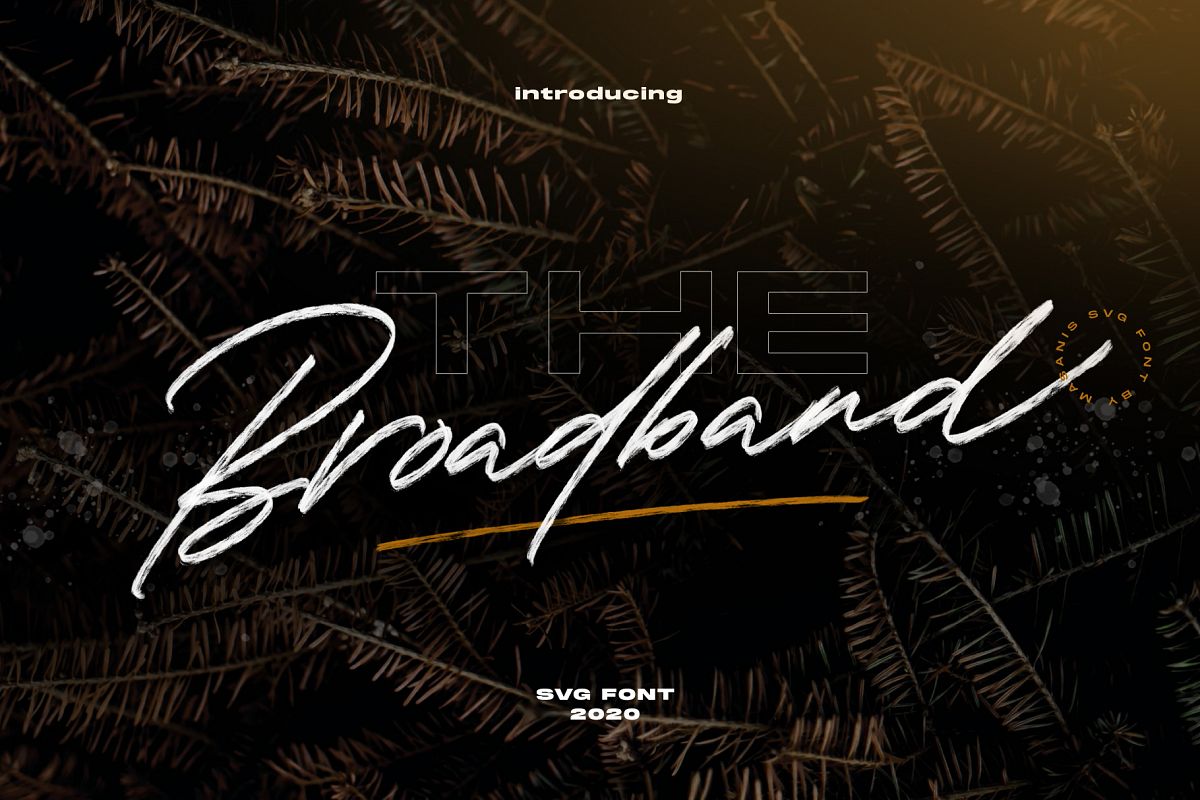
The Broadband - SVG Font
The Broadband Vector
Hi, Please welcome our newest font. The Broadband A rustic, dapper handwritten sag font with a charm. Quick dry strokes and a signature style, This font is perfect for branding projects, homeware designs, product packaging - or simply as a stylish text overlay to any background image.Features :
• ligatures
• alternates
• swashes